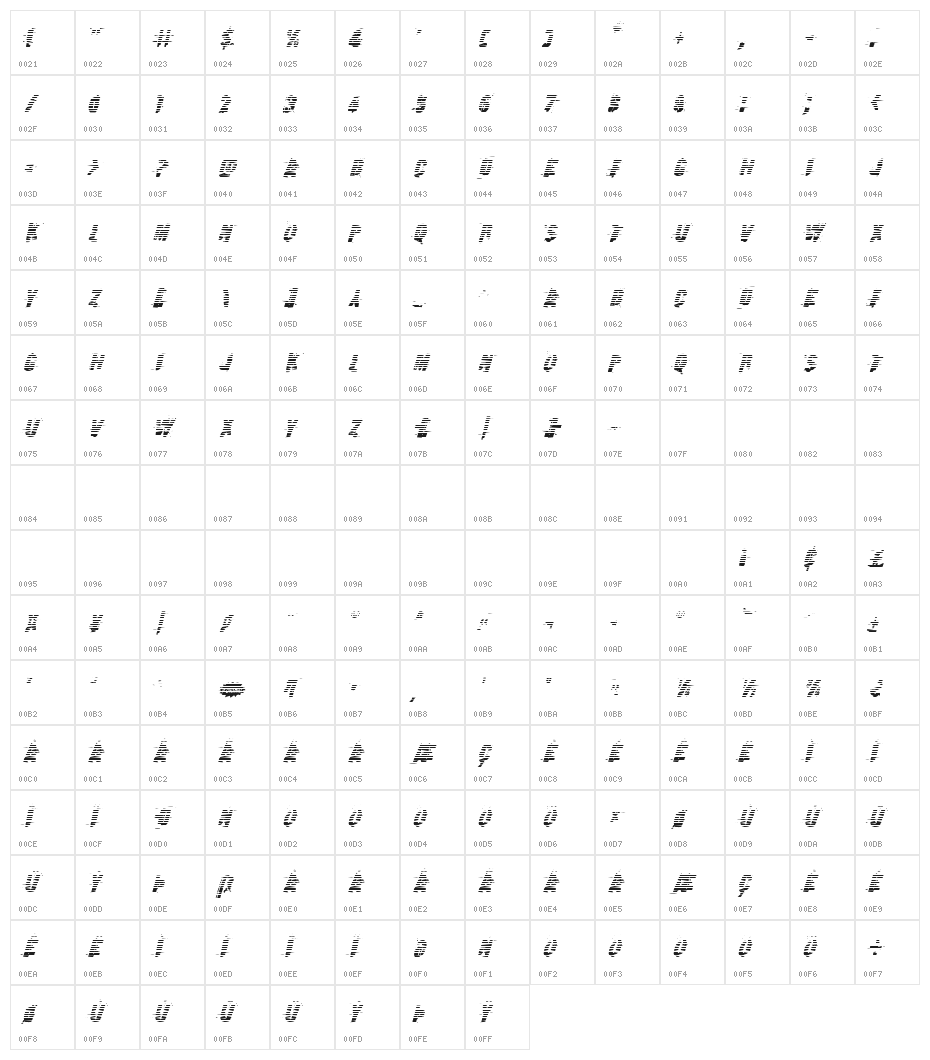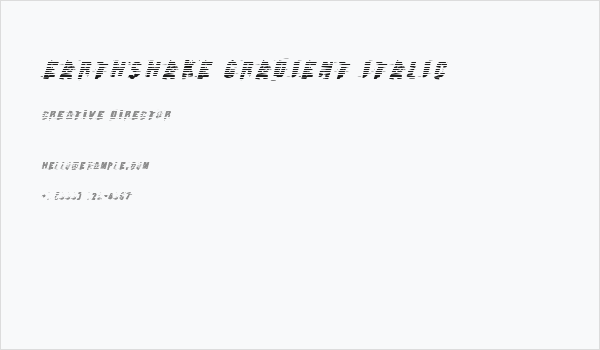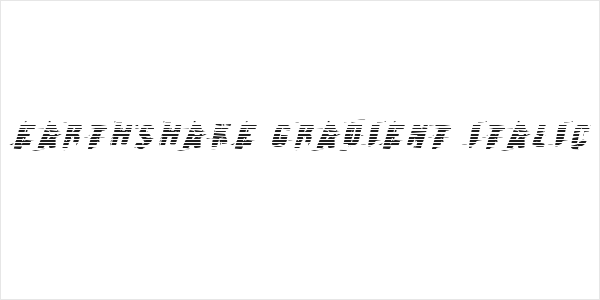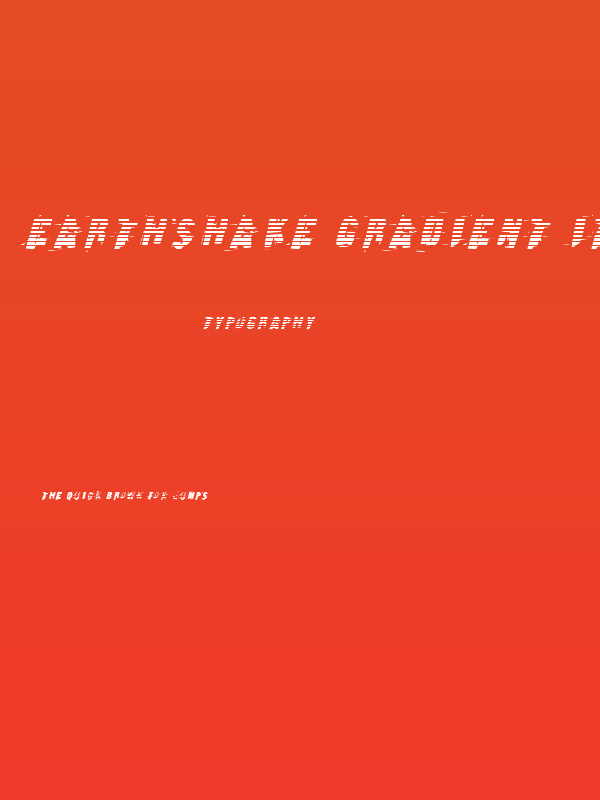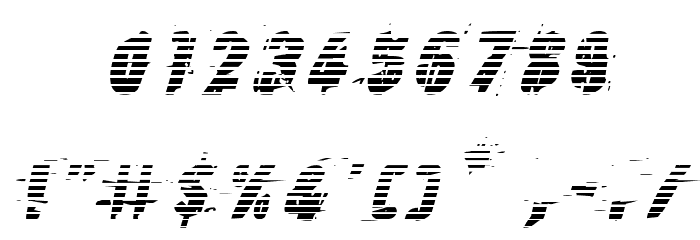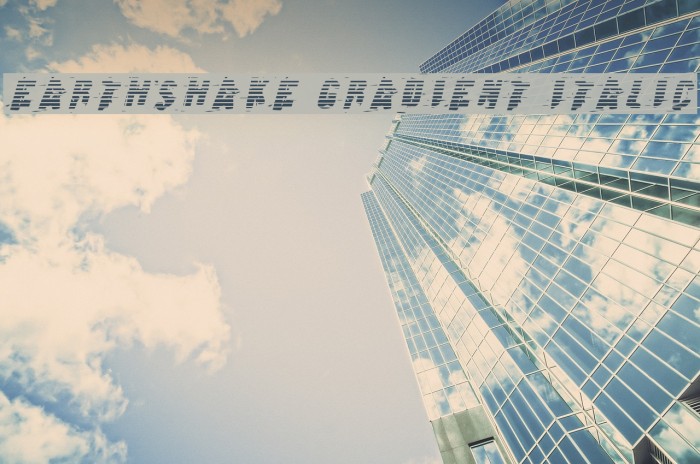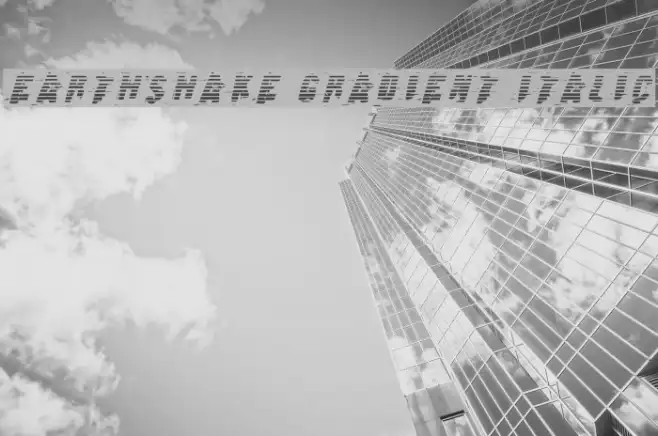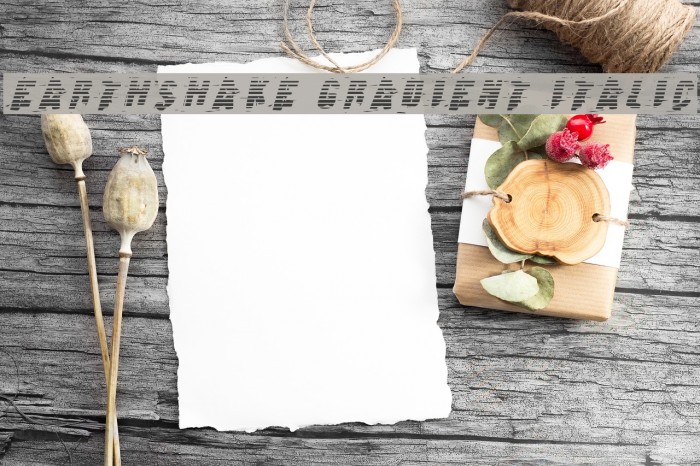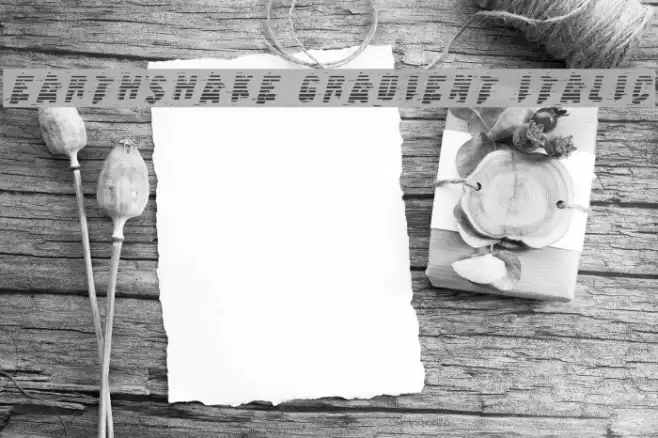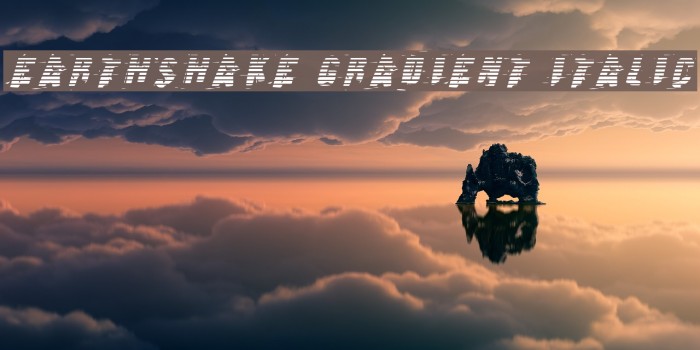
Earthshake Gradient Italic Font
Earthshake Gradient Italic Description
This font features a dynamic and energetic design with a distinct gradient effect that gives the impression of movement or vibration. The italicized style adds a sense of speed and urgency, making it ideal for attention-grabbing headlines or impactful designs. The characters are bold and slightly condensed, with a unique pattern of horizontal lines that create a textured appearance. This design choice enhances the font's modern and edgy aesthetic, making it suitable for contemporary and innovative projects. The overall style is decorative and display-oriented, perfect for projects that require a bold statement.
| Proposed Projects | Suitable for music album covers, event posters, sports branding, and modern digital media. |